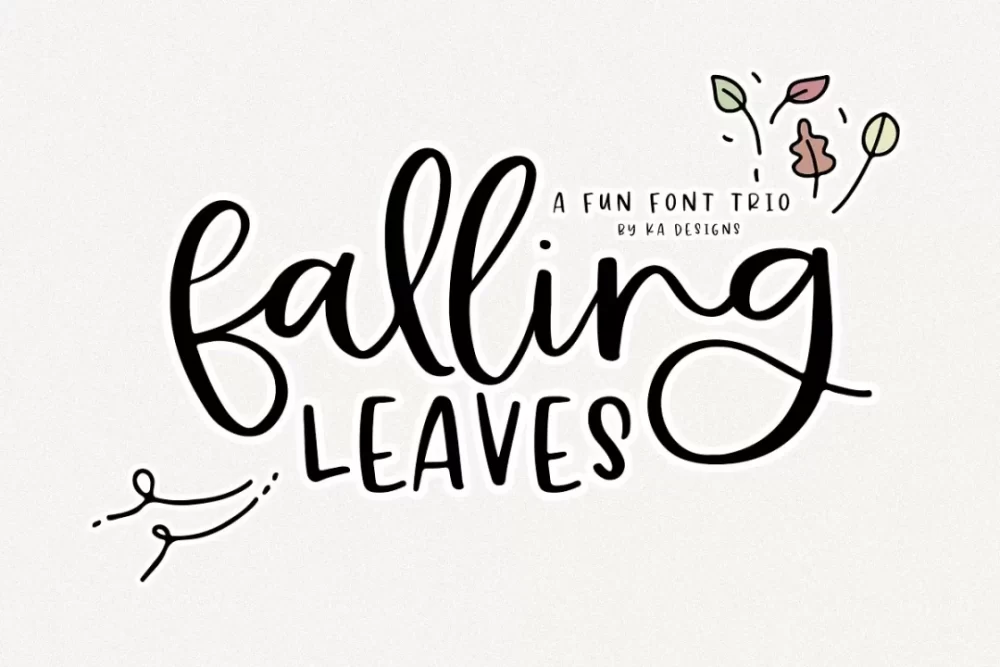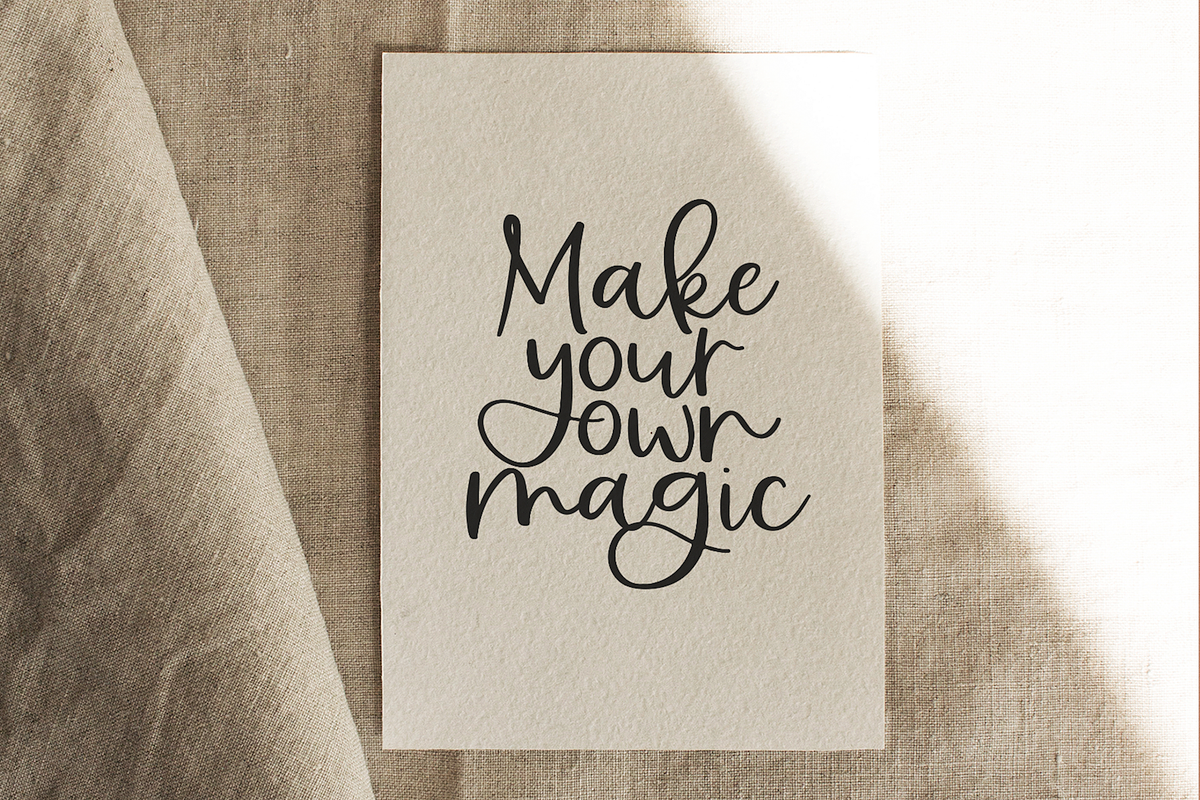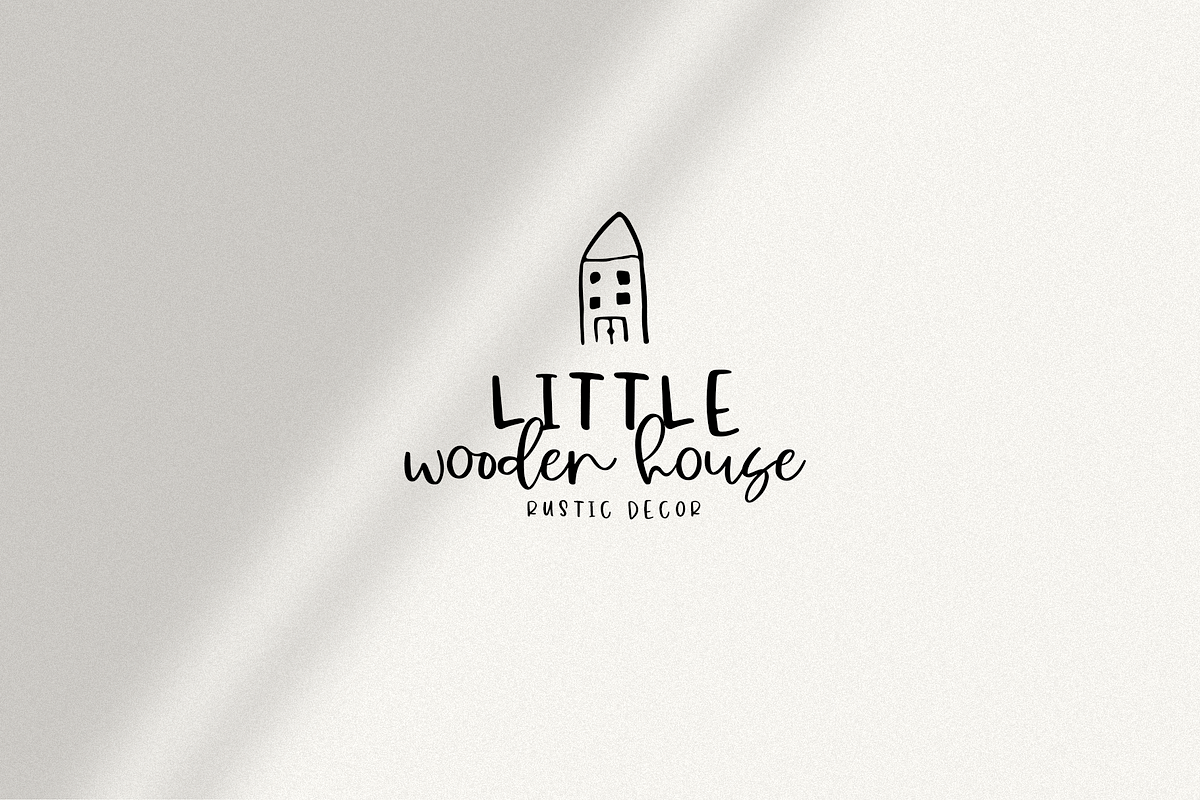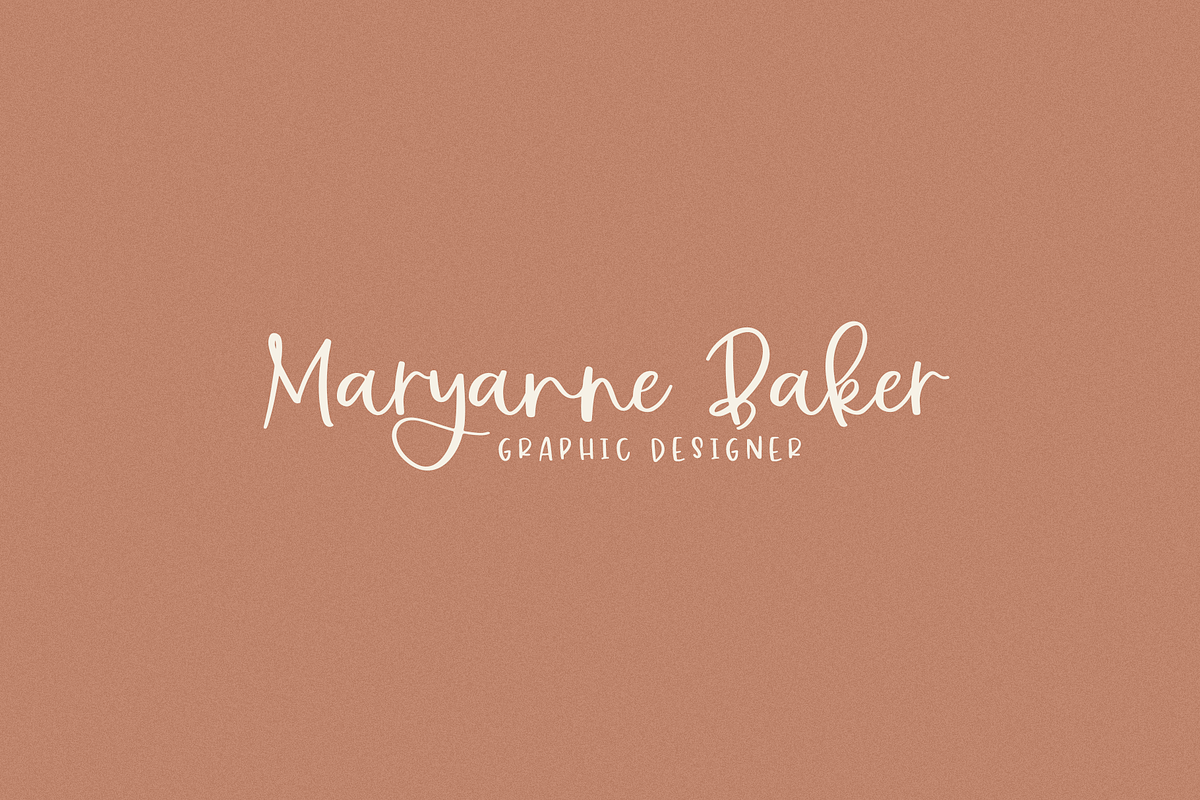
Falling Leaves Font
Falling Leaves is a print/script font duo. A set of hand-drawn leaves is also included as an additional font file. This font is perfect for branding, quotes, social media, blogs, logos, signs, and more!